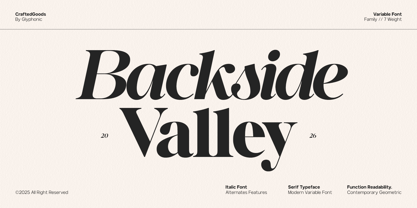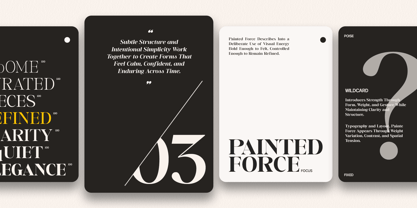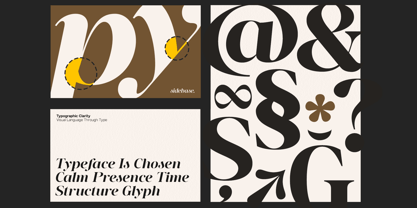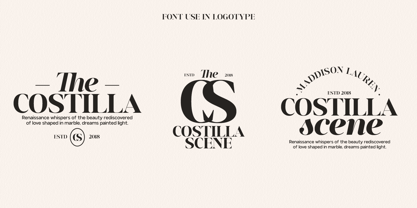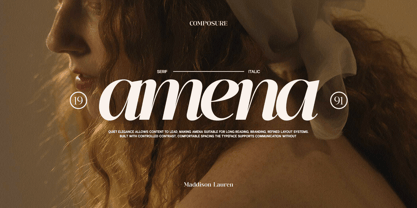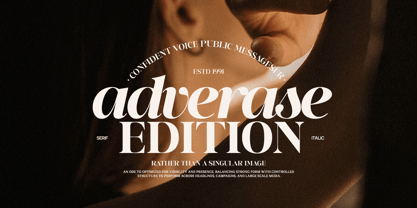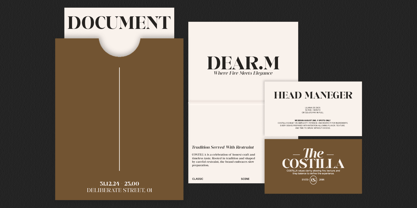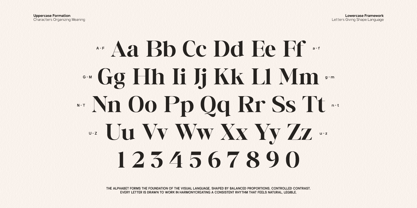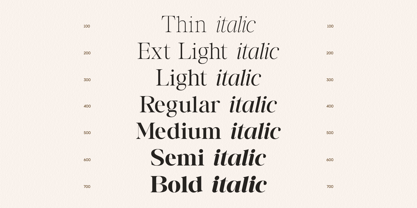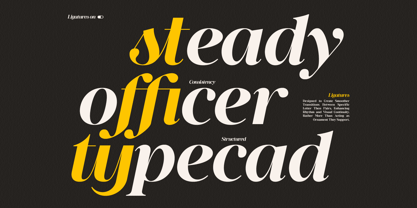
GC Backside Valley
von Onyx Studio
Die Schriftfamilie GC Backside Valley wurde von Muhammad Hafiizh Solana entworfen und von Onyx Studio veröffentlicht. GC Backside Valley enthält 14 Stile und Familienpaketoptionen. Mehr über diese Familie
GC Backside Valley – Modern Serif is a contemporary serif typeface crafted to balance elegance, clarity, and modern character. With refined serif details, clean structures, and confident letterforms, it delivers a distinctive voice that feels both sophisticated and current. Designed to merge classic serif charm with modern sensibilities, GC Backside Valley is perfect for branding, editorial layouts, headlines, packaging, and striking visual identities. Its balanced proportions and thoughtful detailing ensure strong readability while maintaining a bold, expressive presence. Whether you’re creating refined brand systems, editorial compositions, or elegant display typography, GC Backside Valley brings modern sophistication and timeless strength to your designs. Features: - Uppercase & Lowercase - Numbers & Punctuation - Modern Serif Construction - Multilingual Support (170+ Languages) Bring modern elegance and confident serif character to your typography with GC Backside Valley.
Designer: Muhammad Hafiizh Solana
Foundry: Onyx Studio